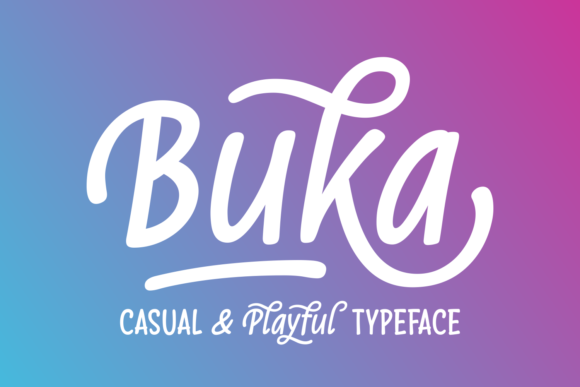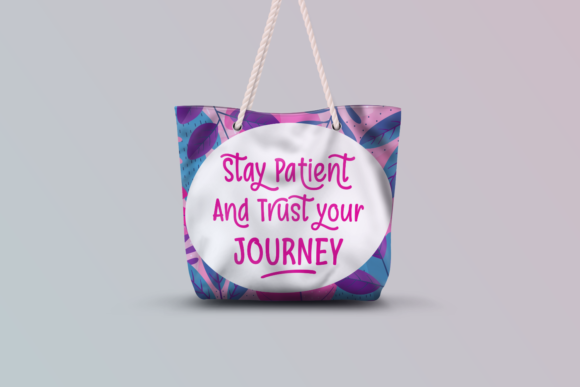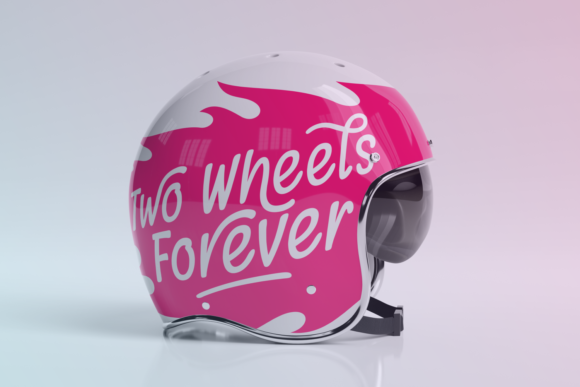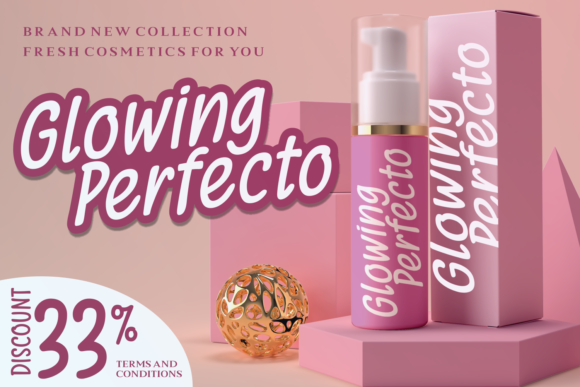
About Buka Font
Buka is a cute and casual handwritten font with an incredibly friendly feel. It features gorgeous swashes and ligatures that make this script incredibly versatile. Whether you’re looking for fonts for Instagram or calligraphy scripts for DIY projects, Buka will turn any creative idea into a true piece of art!